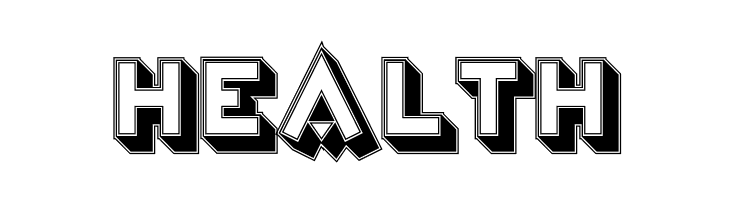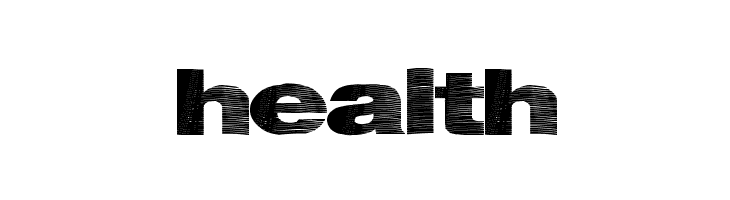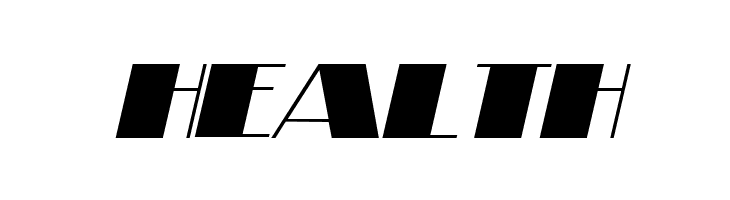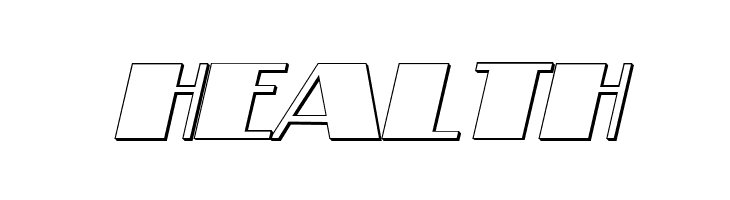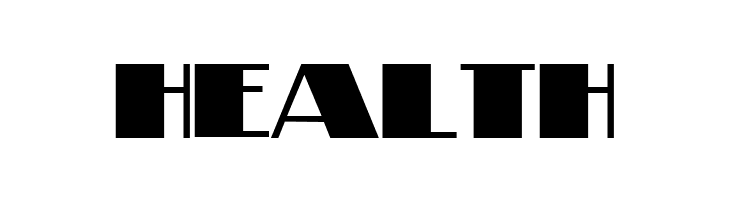
An ornate and decorative font with a vintage, theatrical style.
A bold, geometric font with modern, block-like characters and unique cut-out sections.
A decorative font made of star shapes, perfect for glamorous and theatrical designs.
A bold, vintage-style font with theatrical and quirky embellishments.
An ornate and decorative font with vintage, theatrical flair.
An ornate, decorative font with a vintage, theatrical style.
An elegant script font with flowing, connected letters and ornate flourishes.
Illustrative font featuring drama and theater motifs.
A bold, shadowed font with a vintage, theatrical flair.
A theatrical, illustrated display font featuring dance and performance scenes for each character.
A display font where each character is a distinct illustrated mask.
A bold, playful font with theatrical flair and dynamic character design.
A whimsical decorative font featuring monkeys and architectural silhouettes.
A decorative font with theatrical and whimsical character illustrations.
A playful, puppet-themed decorative font with illustrated characters for each glyph.
An elegant cursive script font with smooth, flowing strokes and a handwritten appearance.
A futuristic and geometric font with smooth curves and a modern aesthetic.
A decorative, vintage-inspired font with theatrical elements and bold, eye-catching letters.
A playful, casual handwritten font with an informal and personal style.
A playful, handwritten font with a casual and whimsical style.
A playful, handwritten font with a whimsical and casual style.
A playful, casual handwritten font with a lively and informal style.
A bold, theatrical font with dramatic curves and vintage flair.
A bold, decorative font with atomic motifs for a futuristic look.
A playful, handwritten-style font with a casual and dynamic appearance.
A graceful, handwritten script font with elegant, flowing strokes.